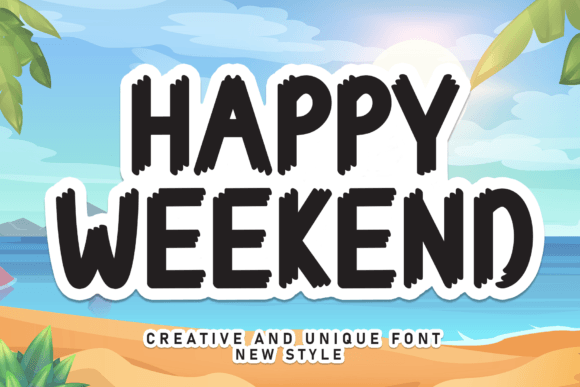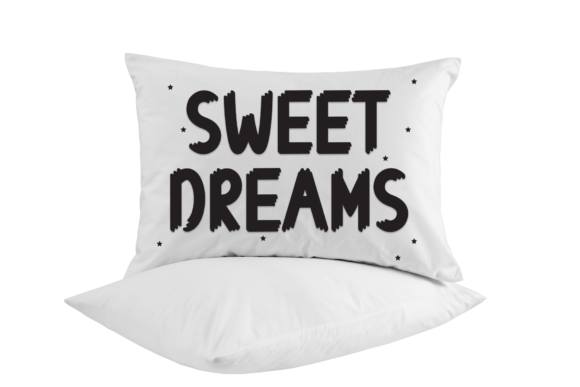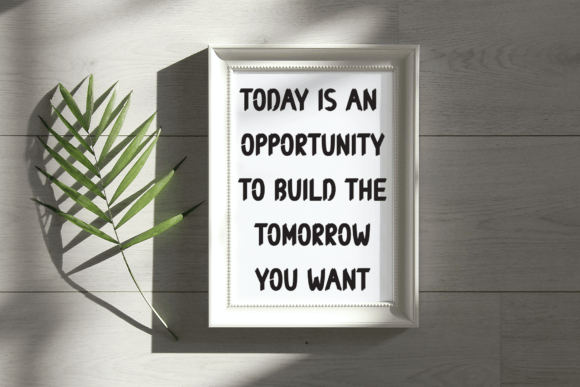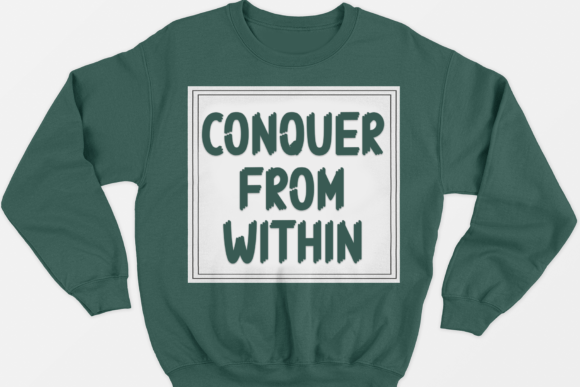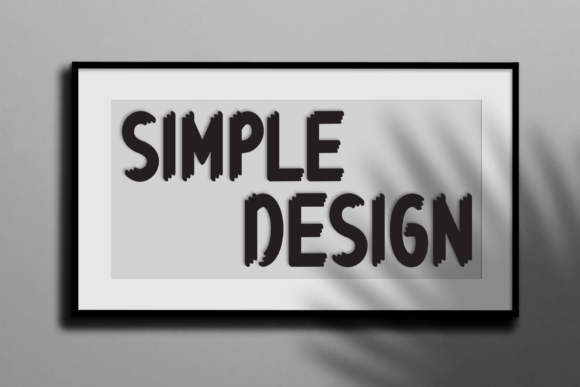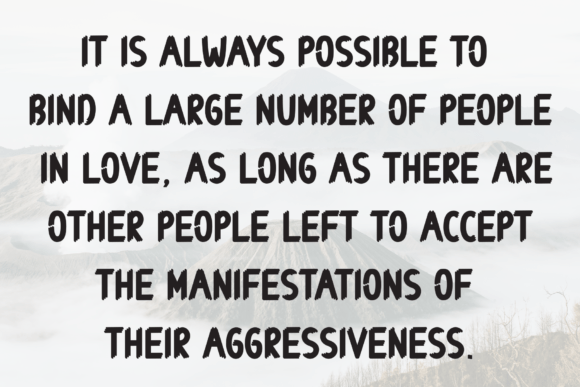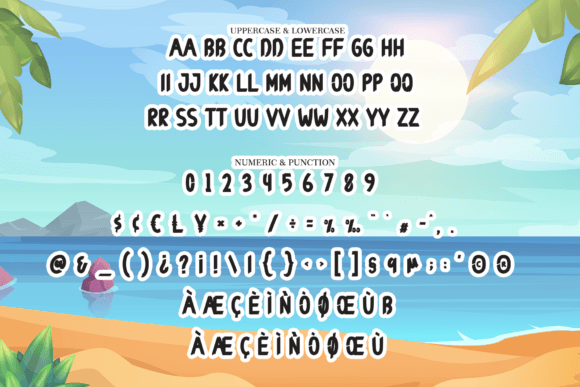
Get Ready to Brighten Up Your Designs with the Happy Weekend Font
Who else has ever spent hours scrolling through font options, searching for the perfect one to match the mood of their latest creative project? I know I have! It’s that moment when you stumble upon the perfect font that sparks a smile and makes everything feel just right. For me, that moment happened when I discovered the Happy Weekend Font.
This cheerful display font is designed to spread joy and friendliness, making it perfect for a wide range of creative projects, from digital designs and presentations to crafts and greeting cards. As a designer, I can attest to the value of having a reliable font that can add a personal touch to any project. With the Happy Weekend Font, you’ll have a go-to font that’s sure to bring a smile to your audience’s faces.
Key Features of “Happy Weekend Font”
- Font Family: A custom-designed font family, consisting of multiple weights and styles.
- Character Set: Includes a comprehensive set of characters, including Latin, Cyrillic, and Greek alphabets, as well as punctuation and symbols.
- Unique Characteristics: Features a playful and modern design, with distinctive letterforms and a vibrant color palette that’s perfect for creating eye-catching graphics and designs.
Happy Weekend Font Review
Overall, I think the Happy Weekend Font is a fun, quirky addition to any design project. Here are a few things that really stand out to me: ✨
- Unique charm: The Happy Weekend Font has a playful, handwritten feel that’s perfect for capturing a carefree vibe.
- Versatility: This font works well in a variety of settings, from social media graphics to wedding invitations.
- High-quality glyphs: The font includes a wide range of characters, including international symbols and punctuation.
That being said, there are a few limitations to consider: ⚠️
- Limited legibility: At small font sizes, the Happy Weekend Font can be difficult to read due to its irregular letterforms.
- No italic or bold options: While the font is great for headings, it may not be the best choice for body text or situations where emphasis is needed.
Overall, I think the Happy Weekend Font is a great choice for designers looking to add some personality to their projects. Just be mindful of its limitations and use it thoughtfully.
Tips for Getting the Most Out of the Happy Weekend Font
1. Use the Happy Weekend Font for titles and headings to add a touch of playfulness to your designs.
2. Pair the Happy Weekend Font with a clean and simple sans-serif font for a balanced look.
3. Experiment with different font sizes and colors to create a unique visual effect.
1. Social media graphics and posts.
2. Event invitations and flyers.
3. Blog posts and articles.
4. Advertising and promotional materials.
Alternative Weekend Fonts for Designers
1. Casual Day Font
Casual Day Font is a modern, clean font suitable for casual and everyday use. It is ideal for social media posts, blog headers, and promotional materials. Compared to Happy Weekend Font, Casual Day Font is more versatile and can be used in a wider range of designs. It lacks the playful, handwritten feel of Happy Weekend Font, making it a better choice for more formal designs.
2. Weekend Vibes Font
Weekend Vibes Font is a fun, cursive font perfect for creating a relaxed and casual atmosphere. It is ideal for designs related to travel, leisure, and entertainment. Compared to Happy Weekend Font, Weekend Vibes Font has a more dramatic and expressive feel, making it a better choice for designs that require a strong emotional connection.
Is the Happy Weekend Font optimized for digital use?
Yes, the Happy Weekend Font is optimized for digital use, including web, mobile, and print applications. It features a high level of hinting and optimization for clear readability on various screen resolutions and devices.